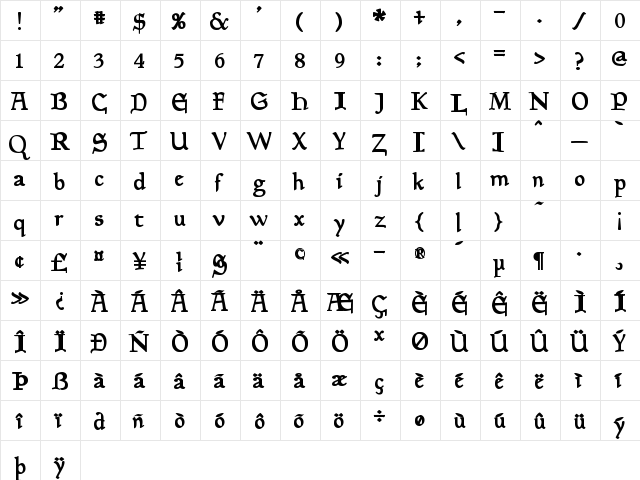
Planewalker Bold
| Foundry | Neale Davidson |
| Designer | Neale Davidson |
Design Context for Planewalker Typeface
Planewalker takes a measured approach to typography — its balanced proportions and neutral character make it a reliable workhorse for both digital and print work. Its bold stroke weight gives it real presence on the page.